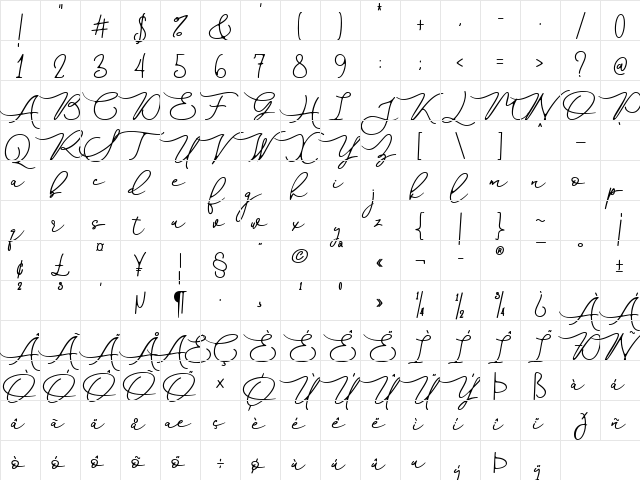
Brattica Regular
| Designer | Aldedesign 2019 |
Design Context for Brattica Typeface
Brattica is a composed and adaptable typeface that performs quietly and consistently across a wide range of design contexts.